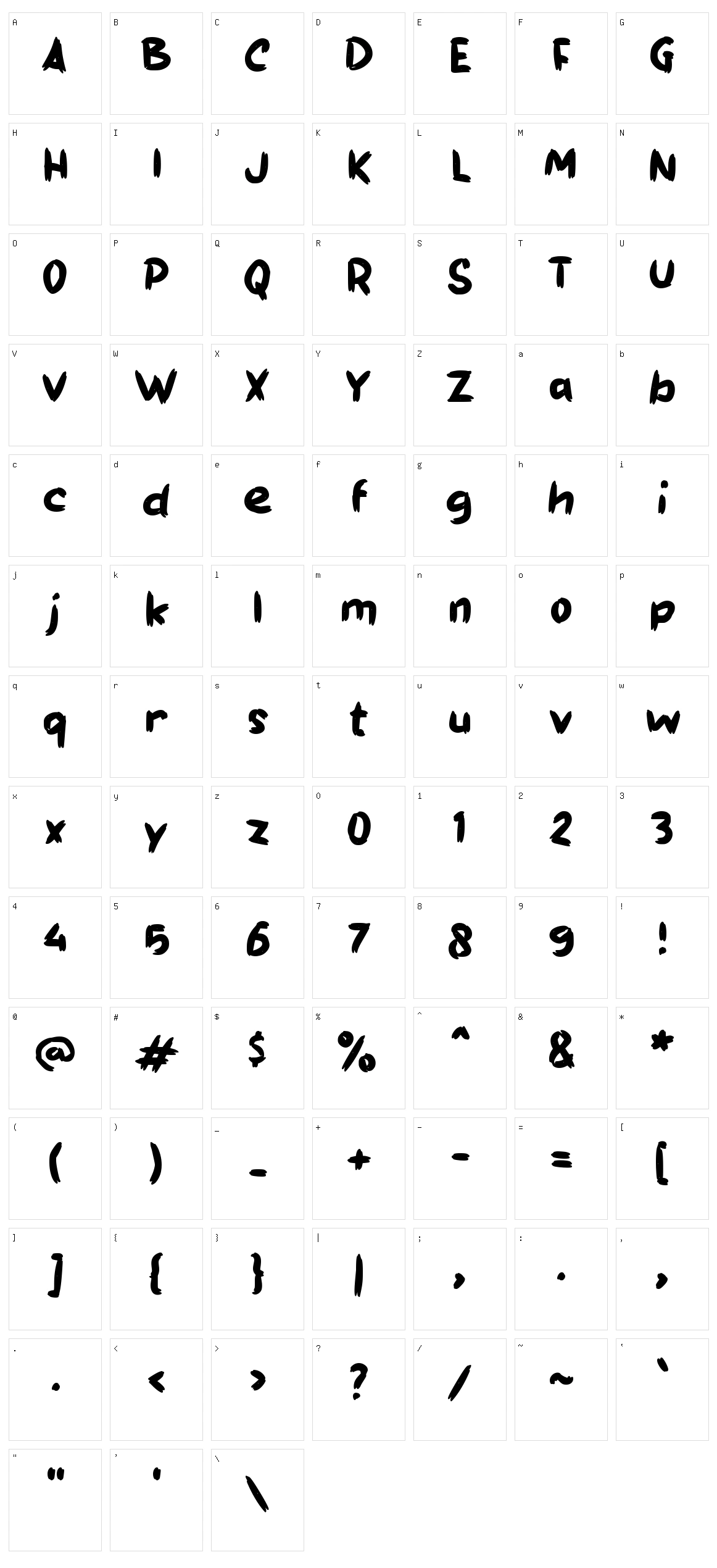
The free font e Eggless Almond is carefully designed by wep, showcasing a thoughtful balance of creativity and usability and falls under the Script font style. When you download the ZIP file, it contains only 16.71 KB of font files, making it lightweight and quick to download. Please review the license details below to understand permitted usage and distribution rights. If license information is not available, we recommend using this font for personal projects only or contacting the author directly for commercial usage permissions.